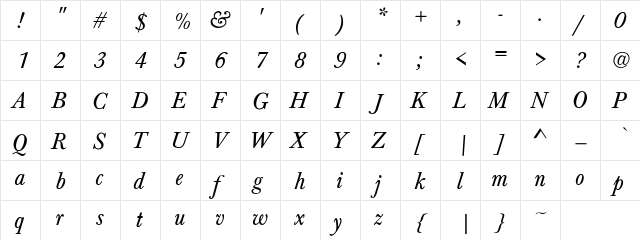
NewBaskervill 3 Regular
Design Context for NewBaskervill 3 Typeface
NewBaskervill 3 is a composed and adaptable typeface that performs quietly and consistently across a wide range of design contexts.